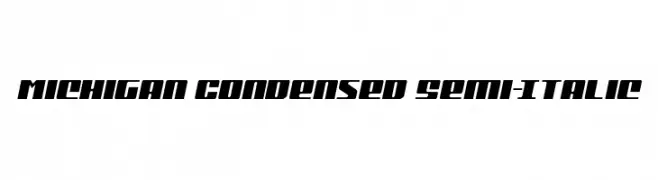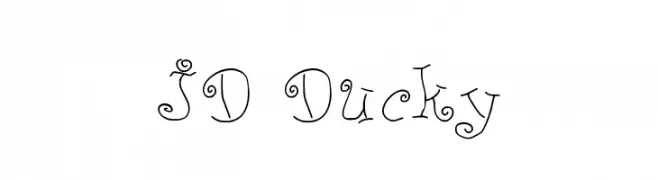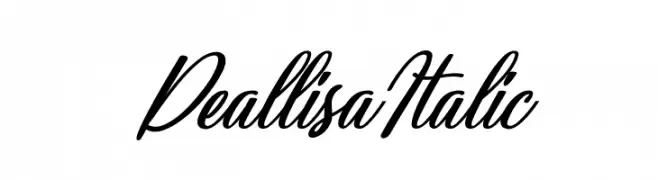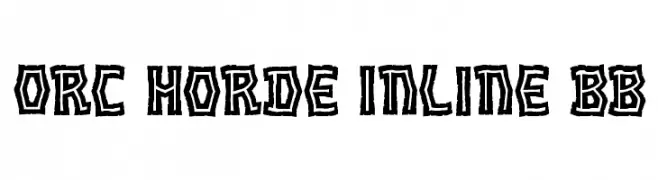
( Fonts by Ghuroba Studio )
A playful, rounded font with a friendly and approachable style.
( Fonts by www.typodermicfonts.com - Ray Larabie )
A bold, futuristic font with intricate, mechanical detailing.
( Fonts by Jecko Development )
A whimsical, curly font with playful swirls and loops.
A playful, monster-themed font with bold, whimsical characters.
A dynamic, flowing script font with elegant, cursive letterforms and an italic slant.
( Fonts by La Tipomatika )
A sleek, modern italic font with clean lines and subtle curves.
( Fonts by www.blambot.com )
A bold, rugged inline font with a hand-drawn, distressed style.